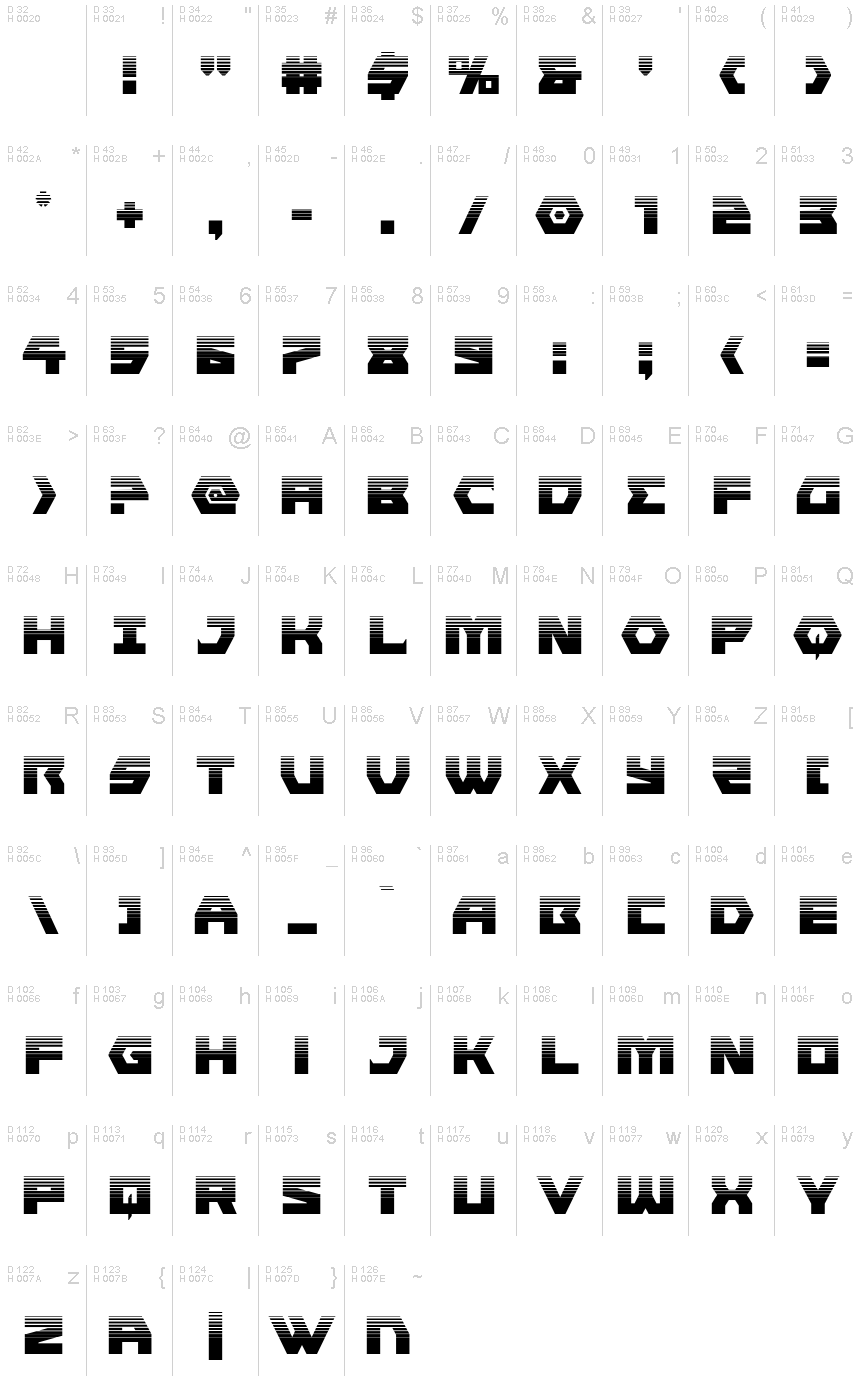
Cyberform Halftone
Cyberform Halftone by Iconian Fonts is a display typeface that embodies a bold, futuristic aesthetic. Its expanded form and distinctive halftone pattern create a visually striking effect, making each letter appear as though it's pulsating with digital energy. This font's robust and dynamic design is perfect for projects that demand attention and convey a sense of modernity or technological advancement.
Ideal for headlines, posters, or any creative endeavor where impact is key, Cyberform Halftone excels in evoking a high-tech atmosphere. Use it to add a cutting-edge flair to your designs and captivate your audience with its unique character.